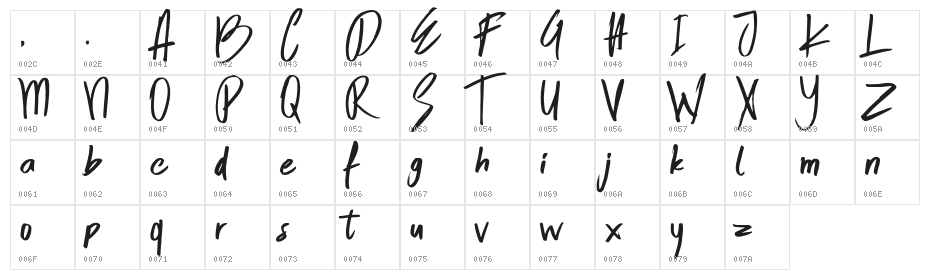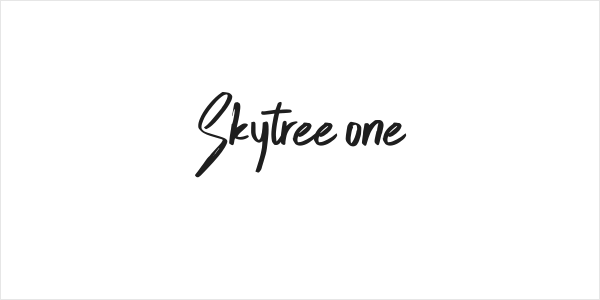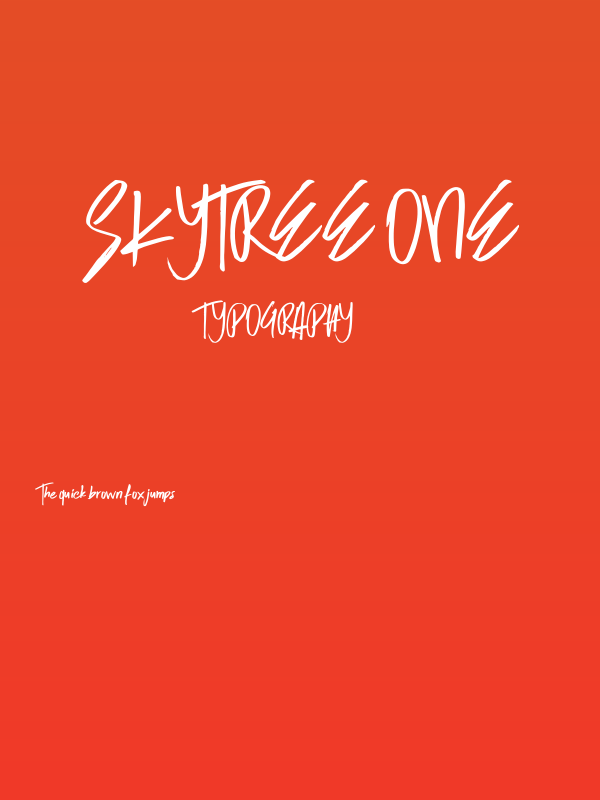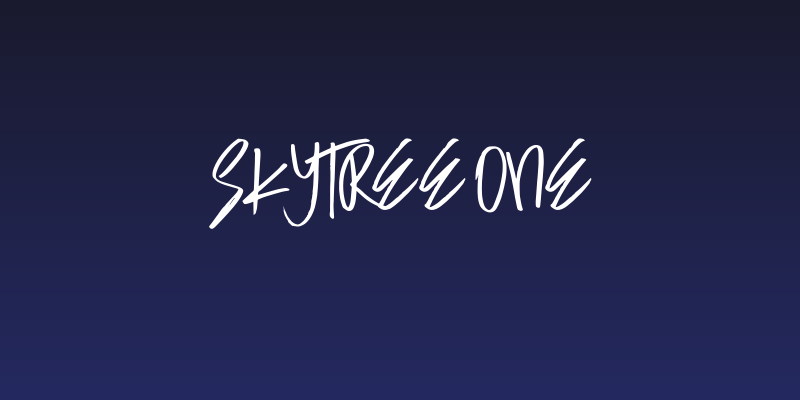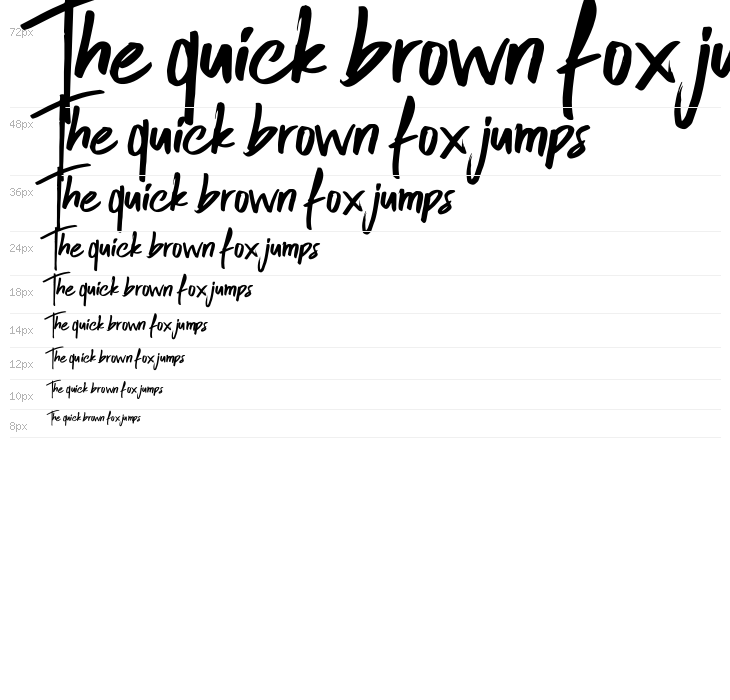
Skytree one Font
Skytree one Description
This font features a bold, energetic script style with a hand-drawn appearance. The letters are dynamic and fluid, with varying stroke widths that give a sense of movement and personality. The uppercase letters are tall and slightly condensed, while the lowercase letters maintain a consistent flow with a more relaxed form. The font's playful yet sophisticated look makes it suitable for creative projects. The special characters are integrated seamlessly, maintaining the overall aesthetic. This font is ideal for projects that require a personal touch or a bold statement.
| Proposed Projects | Ideal for branding, posters, invitations, and creative design projects. |